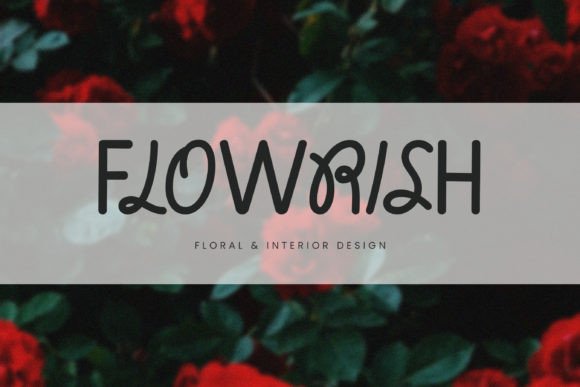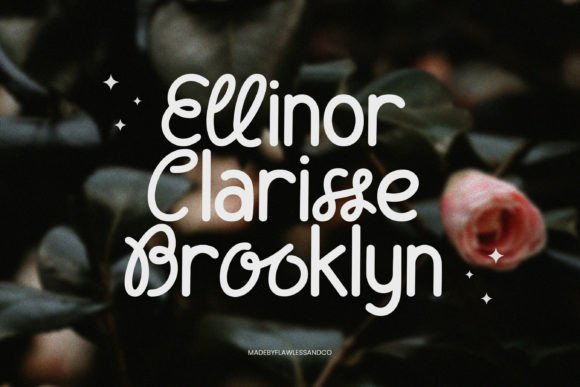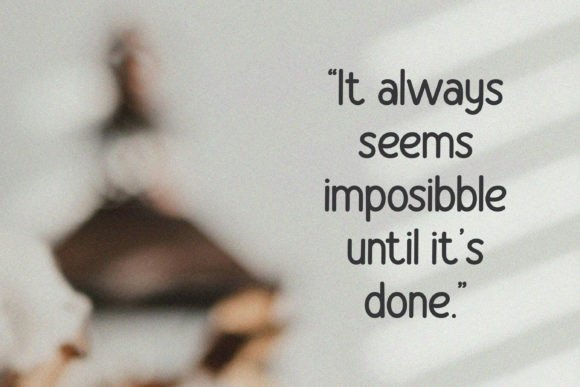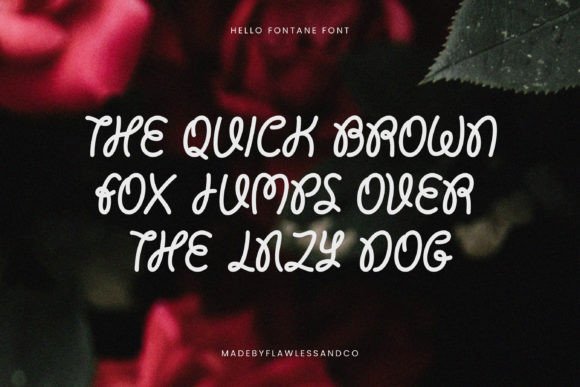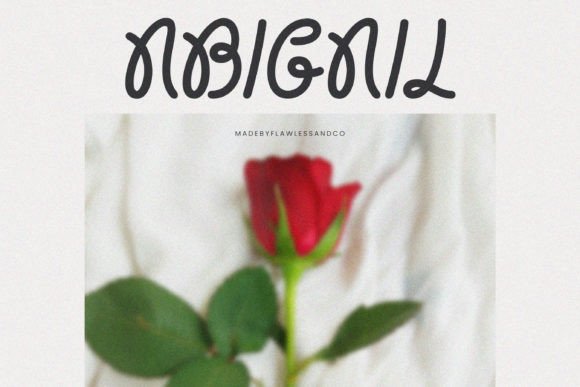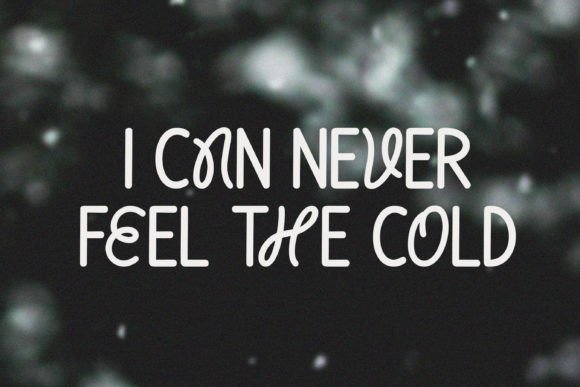
Introducing Hello Fontane: The Ultimate Font Combination for Modern Designs
In the world of typography, finding the perfect font combination that embodies both modernity and personality can be a daunting task. However, with the introduction of “Hello Fontane,” designers and crafters can now experience the perfect harmony of sleek sans serif and charming alternate script. This unique font combination is designed to elevate your designs to new heights, whether you’re crafting invitations, branding materials, or social media graphics.
The Perfect Blend of Modernity and Personality
Hello Fontane is a thoughtfully crafted font combination that pairs a clean and modern sans serif typeface with an alternate script that exudes handwritten charm. The sans serif font is sleek and sophisticated, making it perfect for headlines, titles, and emphasis text. On the other hand, the alternate script font adds a touch of elegance and personality, ideal for adding a personal touch to your designs.
Key Features of Hello Fontane
- Unique Font Combination: Hello Fontane offers a distinctive pairing of sans serif and script fonts, allowing designers to create visually appealing and engaging designs.
- Modern and Elegant: The sans serif font is perfect for modern designs, while the script font adds a touch of elegance and sophistication.
- Versatile: Hello Fontane is suitable for a wide range of design projects, from invitations and branding materials to social media graphics and more.
- Easy to Use: The font combination is easy to use and works seamlessly with popular design software.
Design Possibilities with Hello Fontane
The versatility of Hello Fontane makes it an excellent choice for various design projects. Here are some design possibilities to explore:
- Invitations: Create stunning invitations for weddings, parties, and events with the elegant script font and modern sans serif font.
- Branding Materials: Develop a strong brand identity with Hello Fontane’s unique font combination, perfect for logos, business cards, and letterheads.
- Social Media Graphics: Elevate your social media presence with eye-catching graphics, quotes, and posts designed with Hello Fontane.
- Packaging Design: Add a touch of personality to your product packaging with the charming script font and modern sans serif font.
Tips for Using Hello Fontane
To get the most out of Hello Fontane, here are some tips to keep in mind:
- Mix and Match: Experiment with different font sizes, styles, and combinations to create visually appealing designs.
- Play with Colors: Pair Hello Fontane with a range of colors to add personality and depth to your designs.
- Add Graphics: Combine Hello Fontane with graphics, illustrations, or icons to create engaging and dynamic designs.
Hello Fontane is a game-changing font combination that offers the perfect blend of modernity and personality. With its unique pairing of sans serif and script fonts, designers and crafters can create stunning designs that elevate their projects to new heights. Whether you’re a seasoned designer or a crafty enthusiast, Hello Fontane is an excellent addition to your design toolkit.